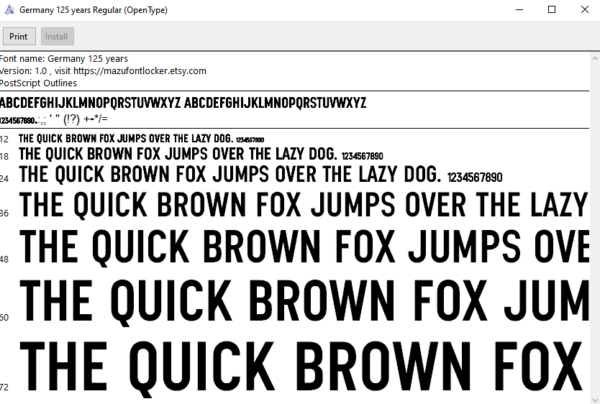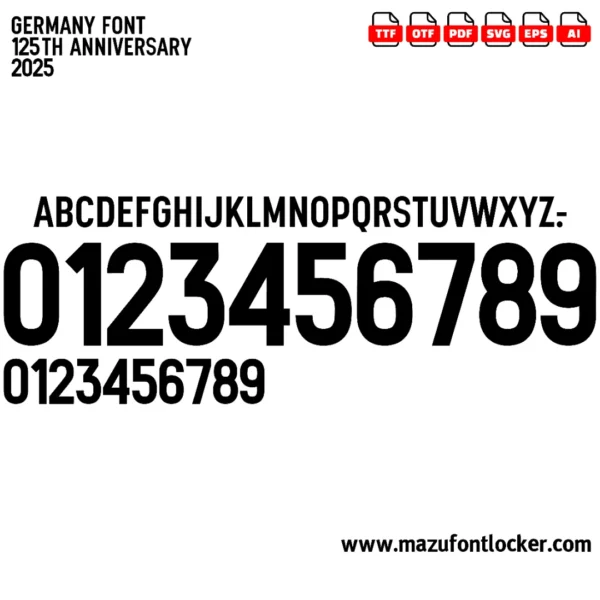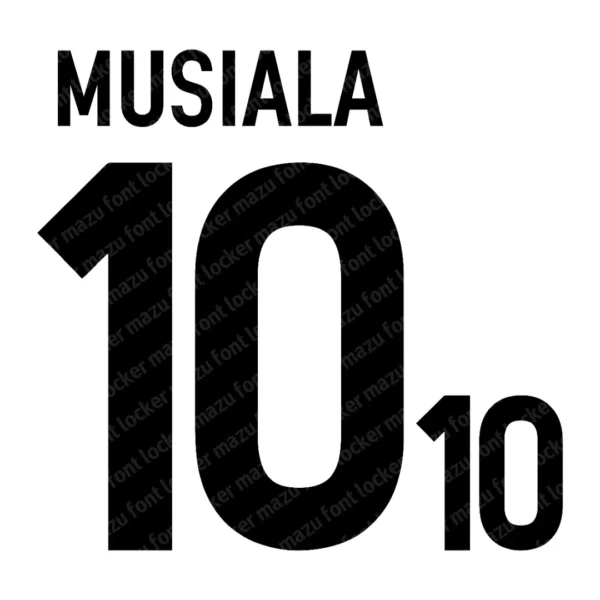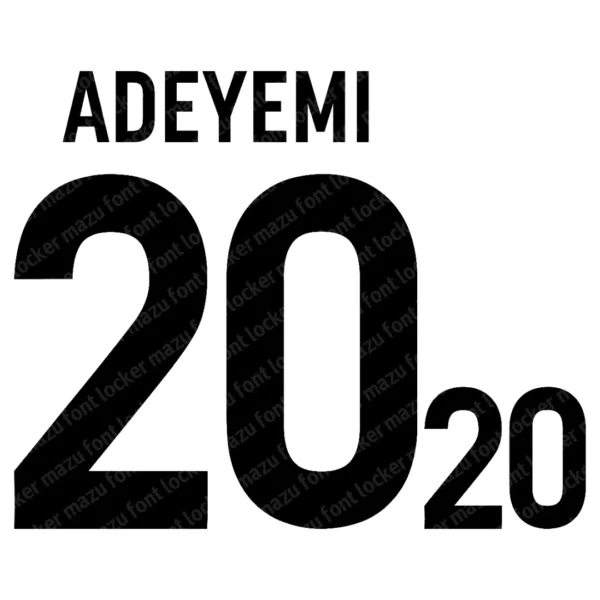
Germany 125th Anniversary 2025 Font Vector – Stunning Die Mannschaft Heritage Masterpiece
This premium font captures the elegant, historic, and championship-crafted match lettering that embodies the enduring Germany spirit — delivering authentic football tradition, elite precision, unwavering determination, tactical mastery, legendary winning mentality, and the iconic black-and-white identity that has inspired generations and cemented Germany’s place among football’s greatest nations.
Germany 125th Anniversary 2025 Font Vector – Iconic DFB Heritage Typeface
The Germany 125th Anniversary 2025 Font Vector is a premium typeface that faithfully recreates the official match lettering introduced for Germany’s special 125th Anniversary kit in 2025. This high-quality vector font kit captures the elegant, minimalist typography designed to celebrate 125 years of the German Football Association (DFB), perfectly complementing the iconic retro-inspired jersey released by adidas. :contentReference[oaicite:0]{index=0}
Created for professional designers, football collectors, and passionate Germany supporters, the Germany 125th Anniversary 2025 Font Vector delivers authentic lettering for realistic jersey mockups, football merchandise, commemorative artwork, social media graphics, and custom fan projects. It perfectly matches the timeless black-and-white anniversary kit inspired by Germany’s rich football history.
Why Choose Germany 125th Anniversary 2025 Font Vector
This font stands out thanks to its clean vector precision and authentic anniversary styling. Every character has been carefully recreated to reflect the official nameset used on Germany’s limited-edition 125th Anniversary shirt. Whether you’re producing professional kit concepts or historic football artwork, the Germany 125th Anniversary 2025 Font Vector delivers a genuine match-quality appearance.
The lettering features elegant minimalist lines with balanced proportions and exceptional readability. Inspired by classic football aesthetics, the design combines timeless simplicity with modern precision, making it suitable for both print and digital applications. :contentReference[oaicite:1]{index=1}
The numerals feature clean geometric construction with refined curves and sharp edges. Built entirely as scalable vectors, every number remains crisp for jersey customization, posters, apparel graphics, and high-resolution printing.
• Complete uppercase A–Z alphabet and numbers 0–9 in authentic Germany 125th Anniversary 2025 style
• Includes the authentic anniversary crest glyph placement beneath player numbers
Germany 125th Anniversary 2025 Collection
Released in 2025, the Germany 125th Anniversary collection celebrated the founding of the German Football Association (DFB) in 1900. The commemorative kit featured a timeless retro design inspired by Germany’s legendary football heritage, including a classic white jersey with black accents, the vintage adidas Trefoil logo, and a special anniversary DFB crest. The accompanying minimalist font was specially designed to complement the historic aesthetic while maintaining excellent readability on the pitch. :contentReference[oaicite:2]{index=2}
This anniversary edition quickly became one of the most admired football releases of 2025, appreciated by collectors and supporters alike for its elegant design and tribute to over a century of German football excellence.
The Germany 125th Anniversary 2025 Font Vector is an independently designed typeface package inspired by the official shirt lettering used on Germany’s special 125th Anniversary kit. It has been carefully recreated for football enthusiasts, graphic designers, collectors, and creators producing custom jersey concepts, commemorative football artwork, and fan-made projects.